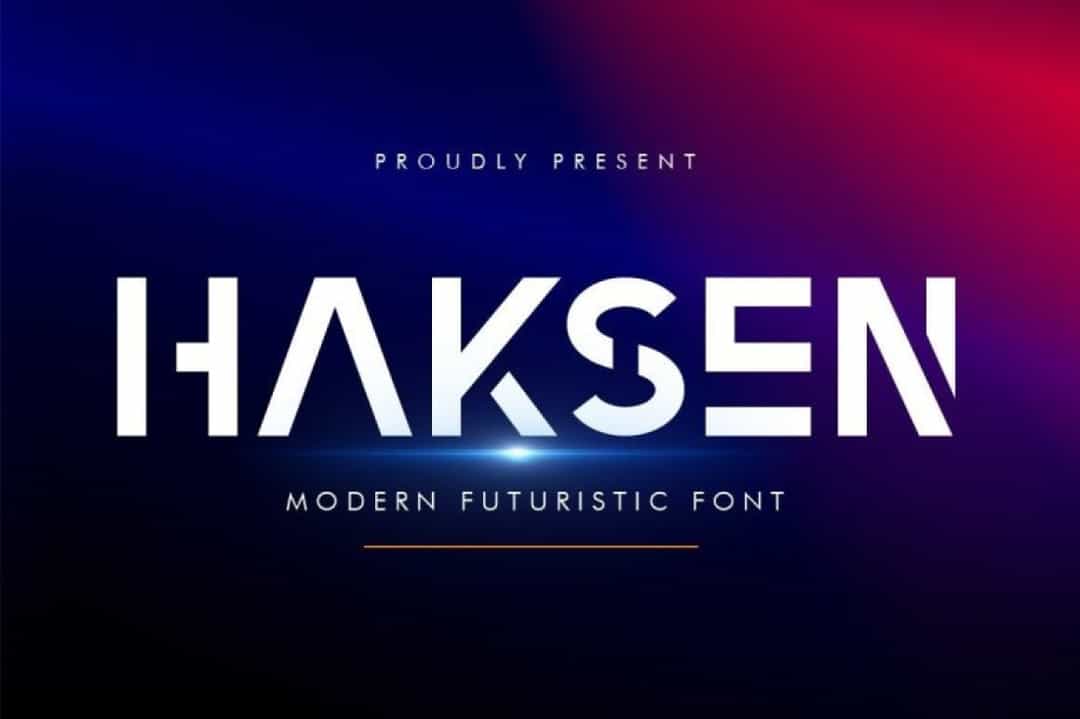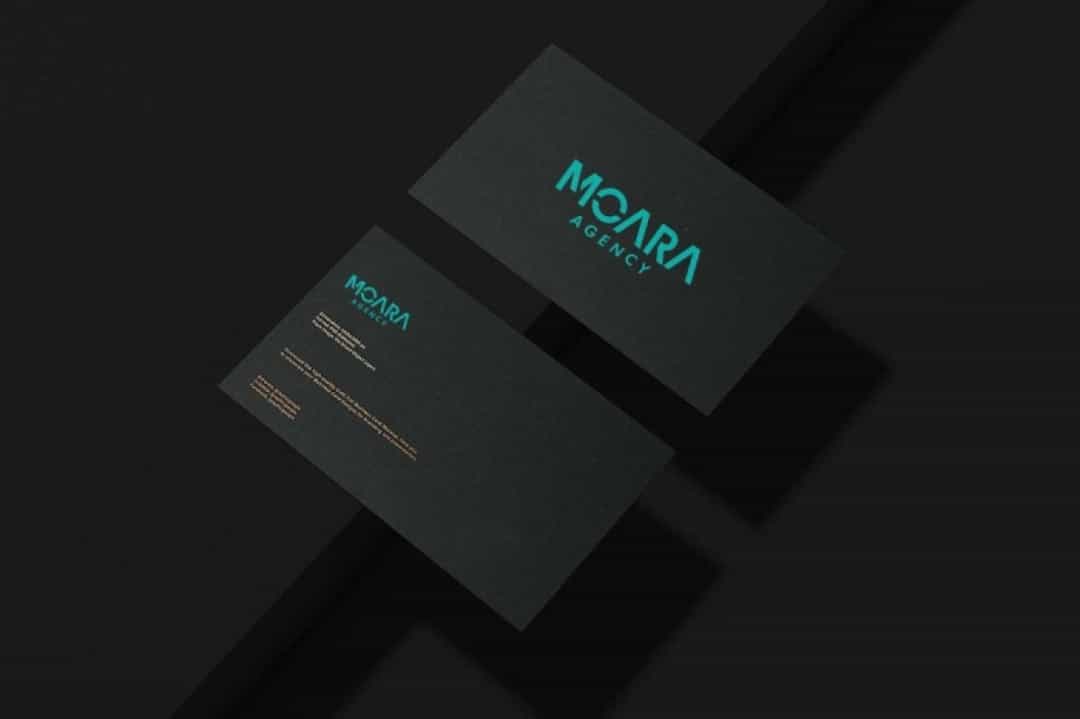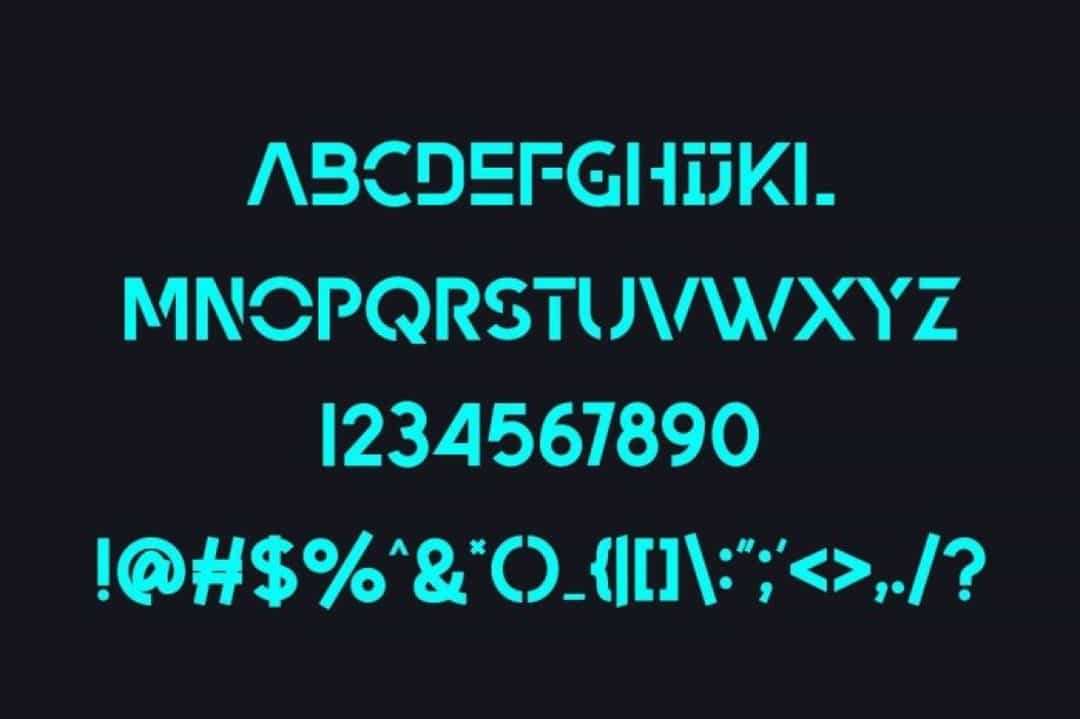
Haksen Font is a contemporary and strong sans-serif style with well balanced uppercase and lowercase styles, along with its expansive set of uppercase letters featuring alternative letters and ligatures to offer various designs that can be used in headlines, logos, posters packaging T-shirts or anywhere else in need of font.